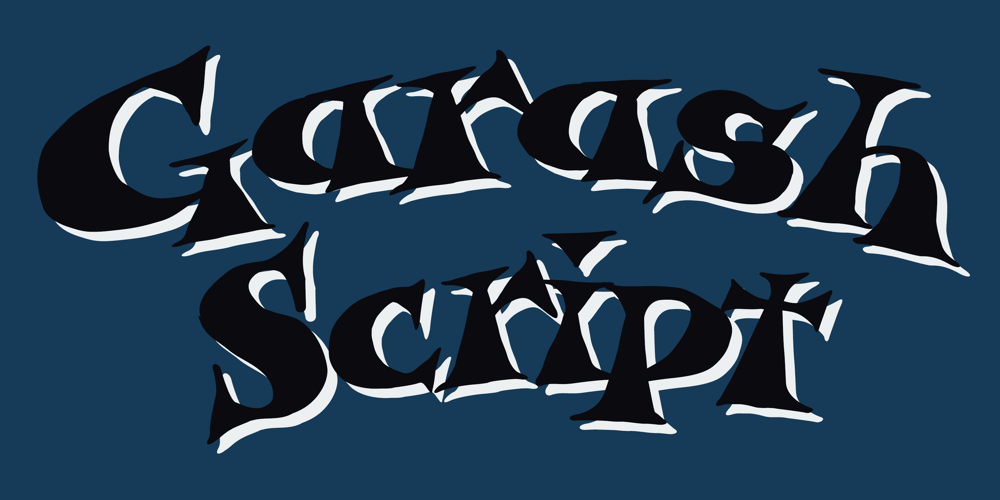
Garash Script Font Family was designed by Ryoichi Tsunekawa and published by Dharma Type. Garash Script contains 1 styles and family package options. Very decorative script inspired by old lettering in Eastern Europe. Eye-catching for picture books, toys for children. There is another font which called Garash.